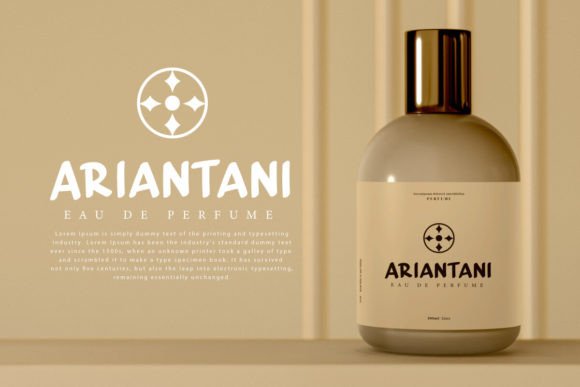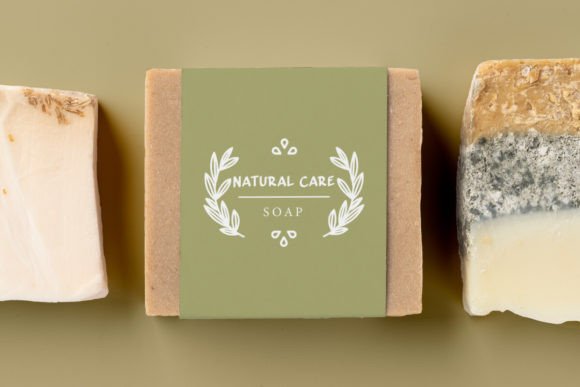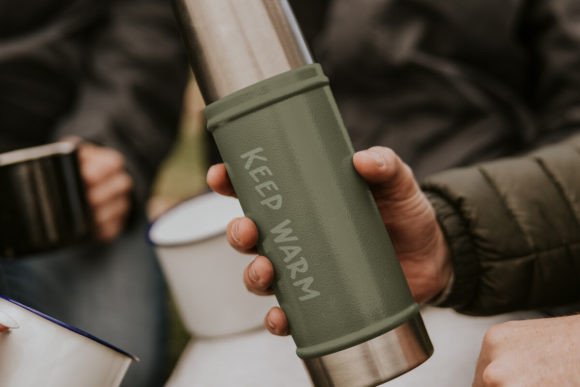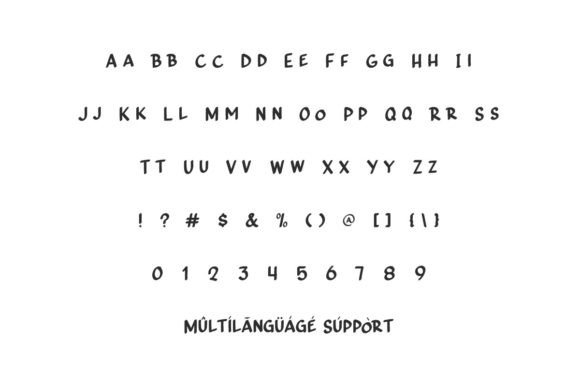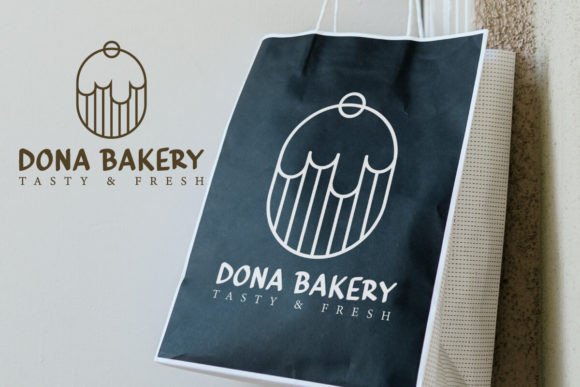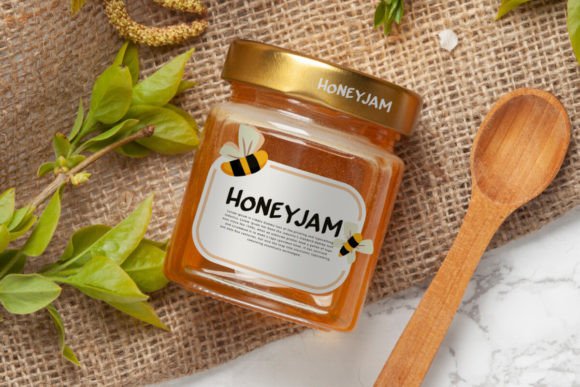
Introducing Great Choice Font: The Perfect Playful Handwriting Display Font
Are you tired of using the same old fonts in your designs? Look no further! Great Choice Font is a playful handwriting display font that adds a personal touch to your creations. Its handmade style gives your designs an original look that’s sure to stand out from the crowd.
What Makes Great Choice Font So Special?
Great Choice Font is a unique and versatile font that’s perfect for a wide range of design projects. Whether you’re a designer, crafty DIY enthusiast, or simply someone who loves to create, this font is sure to become a favorite. Its playful and handwriting-like style makes it ideal for adding a personal touch to your designs.
Great Choice Font is incredibly versatile and can be used for a multitude of design projects, including:
- Apps: Add a personal touch to your app designs with Great Choice Font.
- Blogs: Use Great Choice Font to create eye-catching blog post titles and headers.
- Brand Logos: Create a unique and memorable brand logo with Great Choice Font.
- Brochures: Add a playful touch to your brochures with Great Choice Font.
- Covers: Use Great Choice Font to create stunning book covers, magazine covers, and more.
- Labels: Create custom labels with Great Choice Font for a personal touch.
- Mockups: Use Great Choice Font to add a realistic and handmade touch to your mockups.
- Posters: Create eye-catching posters with Great Choice Font.
- Product Packaging: Add a personal touch to your product packaging with Great Choice Font.
- Quotes: Use Great Choice Font to create inspiring and visually appealing quotes.
- Screen Prints: Create stunning screen prints with Great Choice Font.
- Stationery: Add a playful touch to your stationery with Great Choice Font.
- Stickers: Create custom stickers with Great Choice Font.
- Titles: Use Great Choice Font to create attention-grabbing titles for your designs.
- Watermarks: Add a subtle and handmade touch to your designs with Great Choice Font.
- Websites: Use Great Choice Font to create a unique and memorable website design.
Why Choose Great Choice Font?
There are many reasons why Great Choice Font stands out from the crowd:
- Unique and Original: Great Choice Font has a handmade style that’s sure to give your designs an original look.
- Playful and Fun: Great Choice Font adds a playful touch to your designs, making them more engaging and fun.
- Versatile: Great Choice Font can be used for a wide range of design projects, from apps to websites.
Tips for Using Great Choice Font
Here are some tips for getting the most out of Great Choice Font:
- Experiment with Different Sizes: Great Choice Font looks great in a variety of sizes, from small and delicate to large and bold.
- Play with Color: Great Choice Font looks great in a range of colors, from bright and bold to subtle and pastel.
- Mix and Match with Other Fonts: Great Choice Font pairs well with a range of other fonts, so don’t be afraid to experiment.
Great Choice Font is a playful handwriting display font that’s perfect for designers, crafty DIY enthusiasts, and anyone who loves to create. Its handmade style gives your designs an original look that’s sure to stand out from the crowd. With its versatility, ease of use, and unique style, Great Choice Font is a great choice for any design project.